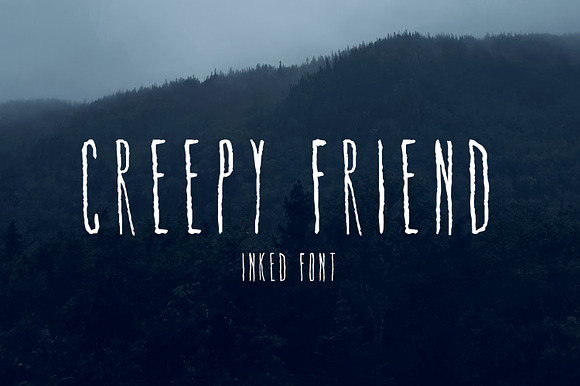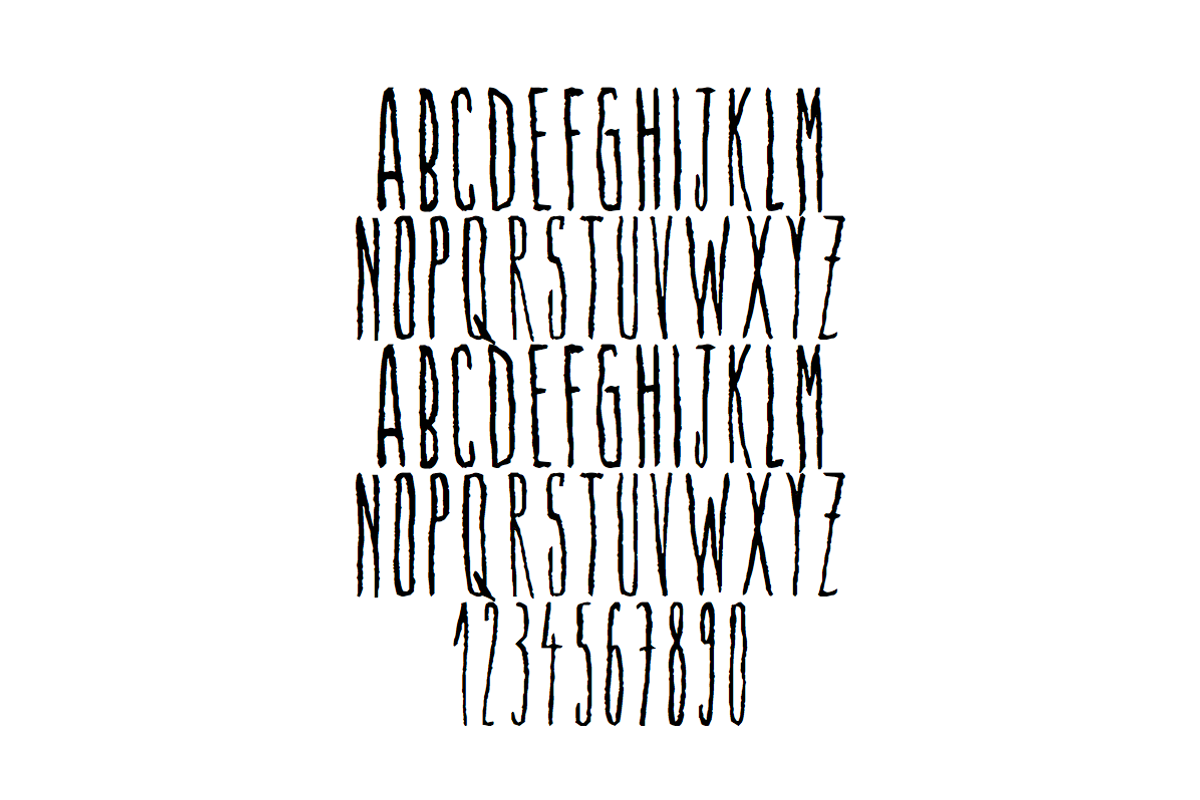
Creepy Friend Font
Creepy Friend is an inked font, grotesque and mysterious. Try it for your creepy designs.
Creepy Friend Font by Caby fits naturally into Branding, posters, packaging, typography.